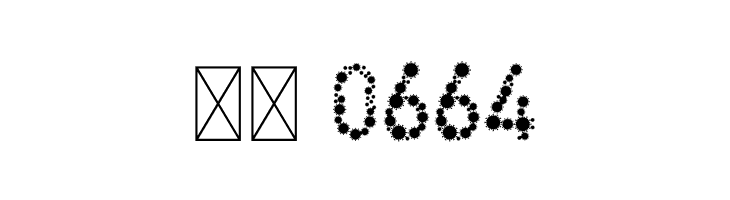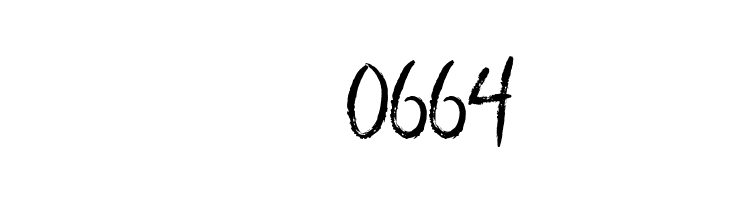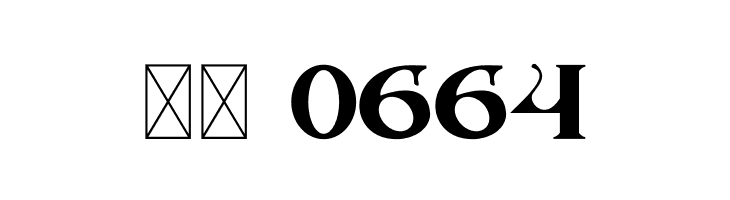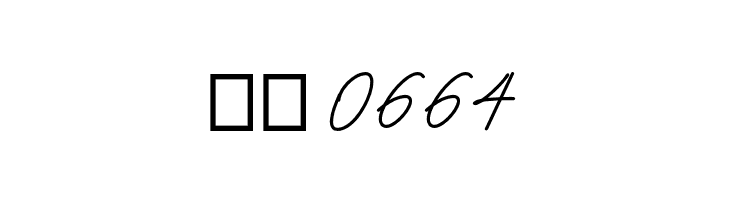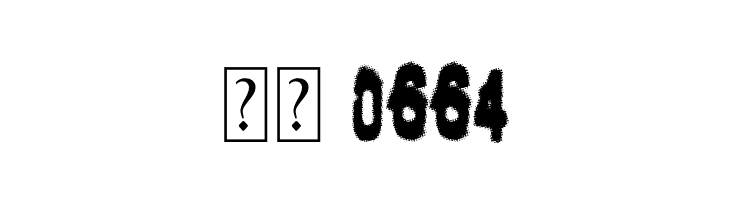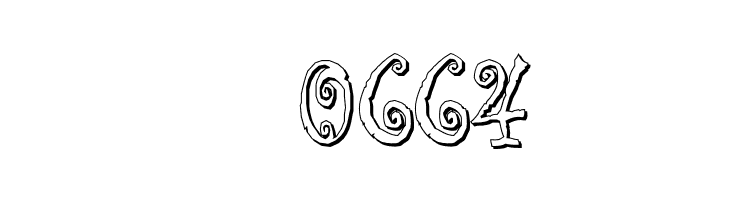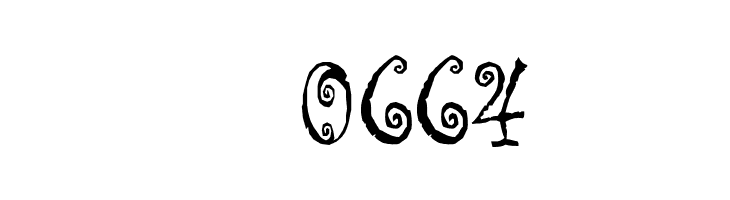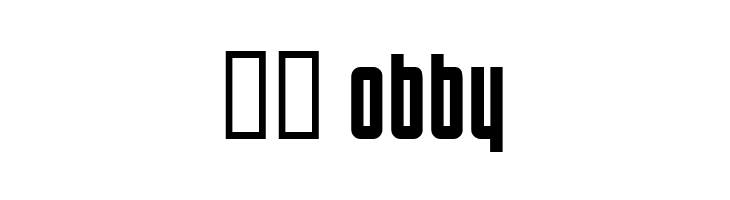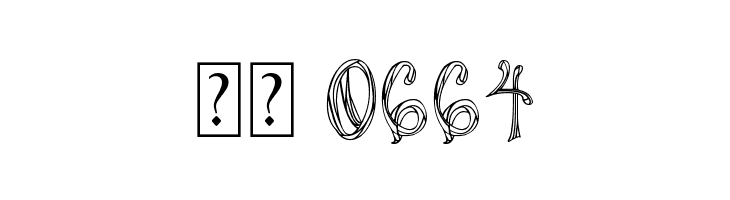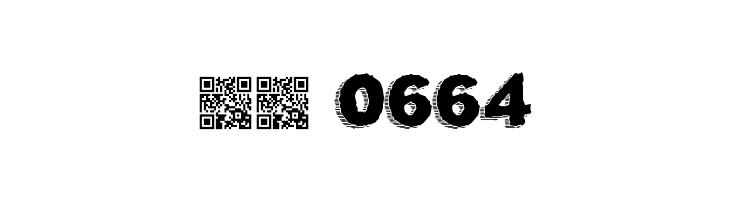
A bold, playful font with a retro, three-dimensional style.
An artistic, leaf-inspired decorative font with fluid, organic strokes.
A whimsical collection of musical, geometric, and nature-inspired dingbats.
A diverse set of ornamental and decorative dingbats.
A bold, decorative set of ornamental and symbolic glyphs.
A graceful, cursive script font with elegant, flowing lines.
A lively and elegant script font with flowing, cursive letterforms.
A dynamic and elegant script font with fluid strokes and graceful curves.
A lively, cursive font with a natural, handwritten feel.
A fluid and elegant script font with medium contrast and dynamic letterforms.
A vintage typewriter-style font with a distressed, monospaced appearance.
A vintage typewriter-style font with a classic, worn look.
A bold, brush-style font with dynamic, hand-painted strokes.
A distressed, hand-drawn font with a grunge style and uneven texture.
A bold, high-contrast serif font with dramatic and elegant character shapes.
A sleek, modern font with clean lines and rounded edges, perfect for versatile design applications.
A fluid and dynamic handwritten script font with elegant cursive strokes.
A bold, decorative font with vintage flair and ornate serifs.
A bold, decorative serif font with intricate details and artistic flourishes.
An elegant and ornate decorative font with intricate swirls and flourishes.
A decorative font made of small circular dots, offering a playful and modern look.
A decorative, virus-themed design using circular shapes.
A bold, textured font with a vintage, distressed style.
A bold, geometric sans-serif font with a modern and professional appearance.
A modern, geometric font with bold, clean lines and a structured appearance.
A whimsical, hand-drawn font with curly embellishments and dynamic strokes.
A whimsical, shadowed font with curly serifs and playful design.
A bold, textured font with a playful, hand-drawn style.